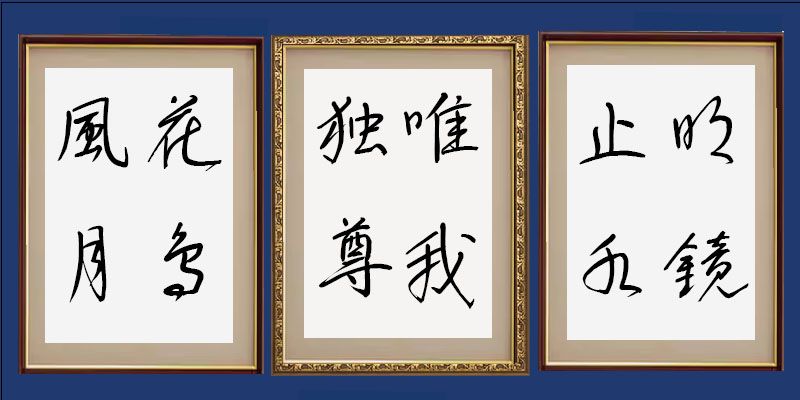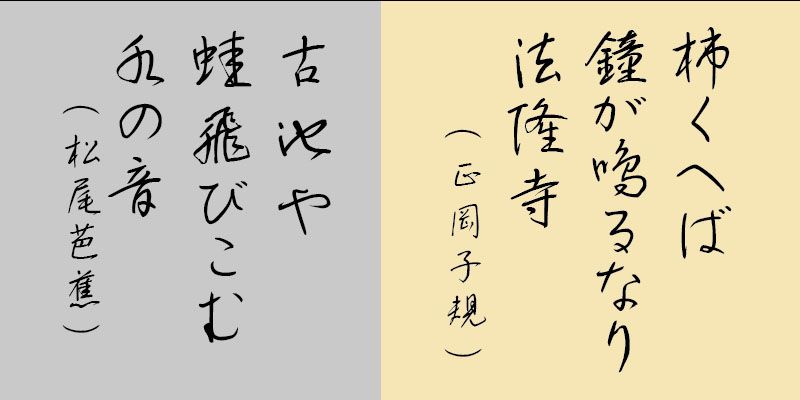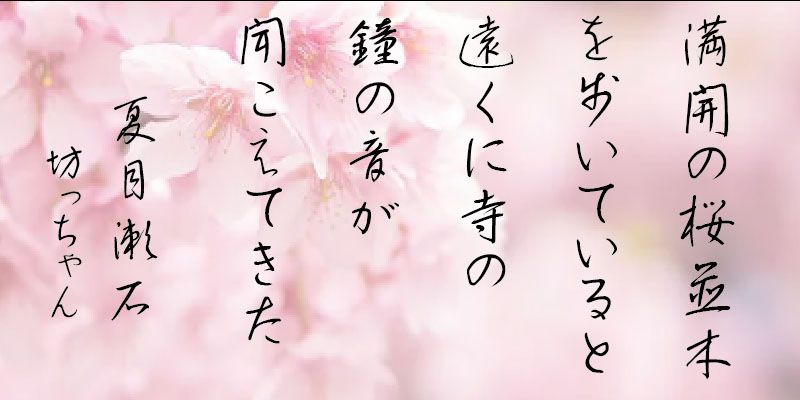
This unique script typeface uses deformation of its letter forms to give the effect of profound strokes written with a brush. It is based on a mixture of characteristics from the semi-cursive and cursive styles. Easy to read ideographic characters are drawn in the So-sho cursive style, with other, more difficult to read characters, drawn in the Gyo-sho semi-cursive style.
The alphanumeric characters, hiragana, and katakana characters included in each font in this typeface family are designed as proportional glyphs, each with its own unique character width.
With over 60 years of experience in calligraphy, Calligrapher Hakushu Nakamoto has created brush script fonts with beautiful and skillfully handwritten letter forms. He works as a professional calligrapher, offering custom services to meet a variety of client needs. By using Nakamoto’s designs, you will become more familiar with the art of traditional calligraphy.